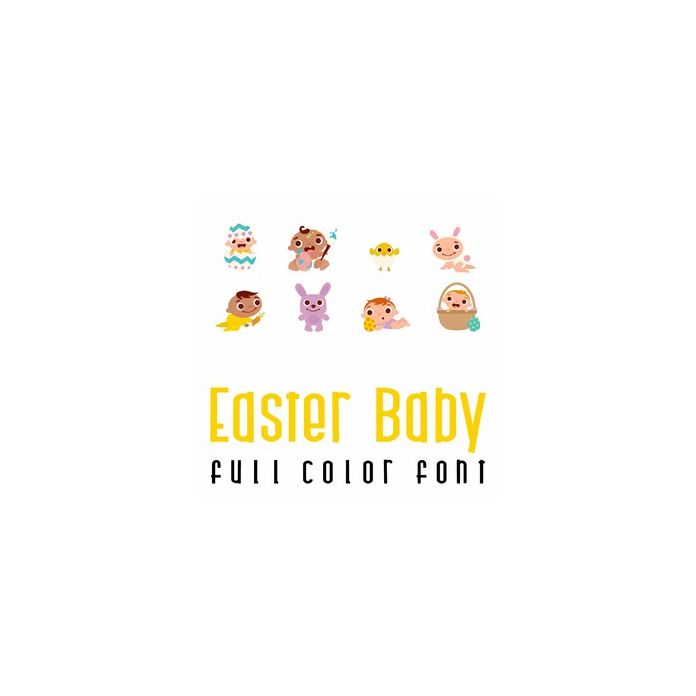
This adorable full color font features 26 of the cutest babies ready for Easter. Perfect for scrap booking, cards, crafts, gifts, decor, planner stickers and more!